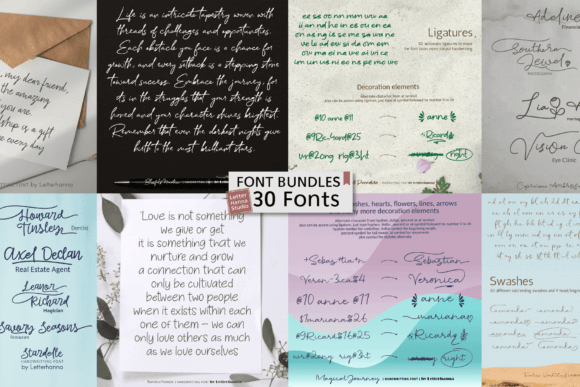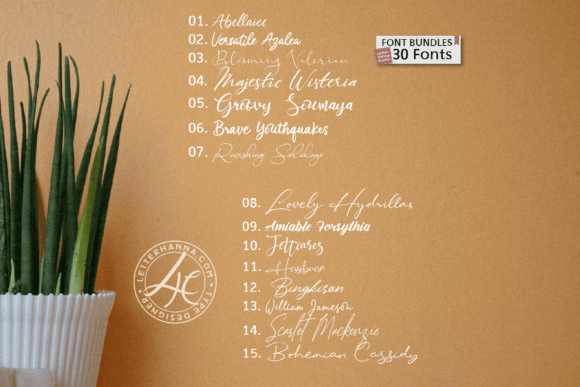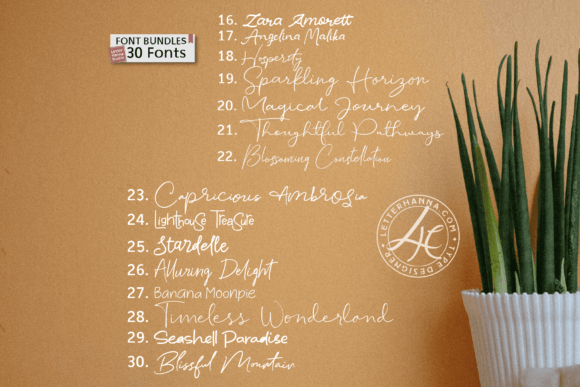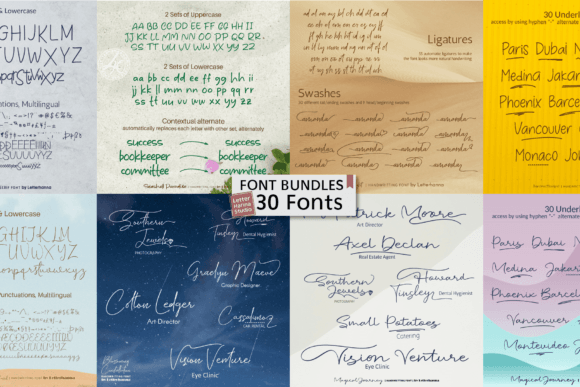
Introduction to Handwritten Bundle Font
As a designer, you know the thrill of creating something from scratch, but sometimes, it’s the little details that make all the difference. Remember that time you spent hours tweaking a font to get the perfect feel for your project? It’s moments like those that make the search for the perfect design resource a treasure hunt. Today, we’re excited to share with you a game-changing discovery: the Handwritten Bundle Font.
This comprehensive collection of 30 unique handwritten fonts is a designer’s dream come true. With its high-quality glyphs, swashes, and ornaments, you’ll be able to add a touch of personality to any creative project. From romantic wedding invitations to quirky social media graphics, the Handwritten Bundle Font has got you covered. And the best part? It’s available for free download, complete with a transparent background, making it easy to use in your next design project.
Whether you’re working on a high-end branding campaign or a low-key blog post, this versatile font bundle is sure to elevate your designs to the next level. So, what are you waiting for? Dive into the world of the Handwritten Bundle Font and unlock a world of creative possibilities!
Key Features of Handwritten Bundle Font
- High-quality, unique handwritten font bundle perfect for creative projects
- Includes a wide range of fonts in various styles, making it a valuable design resource
- Each font is carefully crafted with a high resolution of 300 DPI, ensuring crisp and clear text
- Perfect for use in invitations, quotes, social media graphics, and other creative projects where a personal touch is desired
- Unique, hand-crafted design makes it stand out from other fonts, adding a touch of personality to any design
Honest Review: Handwritten Bundle Font
I recently stumbled upon the Handwritten Bundle Font, and I must say it’s been a game-changer for my design projects. The font is a high-quality resource that’s perfect for any creative project.
- ✨ The font offers a wide range of styles, making it versatile for various design applications.
- ✨ The transparent background option is a huge plus, allowing for seamless integration with any design.
While the Handwritten Bundle Font is a fantastic resource, there are a few limitations to consider:
- ⚠️ The font may not be suitable for formal or professional projects, as it has a more casual, handwritten feel.
- ⚠️ Some users may find the font difficult to read at smaller font sizes.
Overall, I’m impressed with the Handwritten Bundle Font. It’s a great addition to any designer’s toolkit, offering a high level of creativity and flexibility. If you’re looking for a unique and eye-catching font for your next project, I highly recommend giving it a try.
Tips for Getting the Most Out of Handwritten Bundle Font
To get the most out of the Handwritten Bundle Font, try using it with a transparent background to create a layered look. You can also experiment with different font sizes and styles to add depth and interest to your designs.
The Handwritten Bundle Font is perfect for a variety of creative projects, including:
- Logos and branding
- Typography-based designs